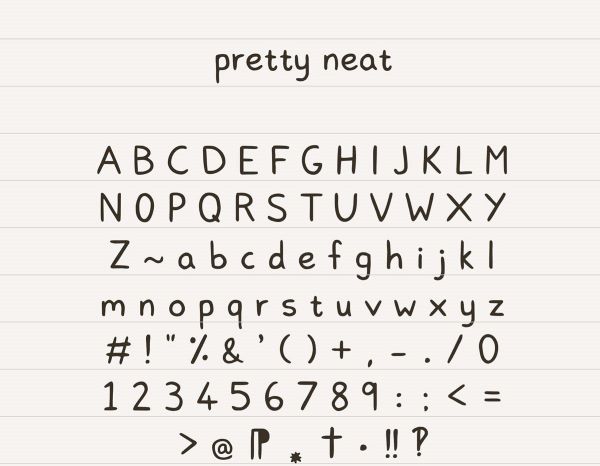
Pretty Neat Font
Pretty Neat by Jaclyn Tan is a free hand-drawn sans-serif typeface that began as something wonderfully personal — the designer’s own handwriting font, translated into digital form. Its relaxed, natural letterforms carry the easy confidence of someone who writes beautifully without trying: slightly irregular, warm, and immediately likeable. Perfect for social media graphics, greeting cards, editorial layouts, packaging, and any project that benefits from a human touch. Licensed under the SIL Open Font License, making it one of the most openly shareable fonts in this collection. Free for personal and commercial use.